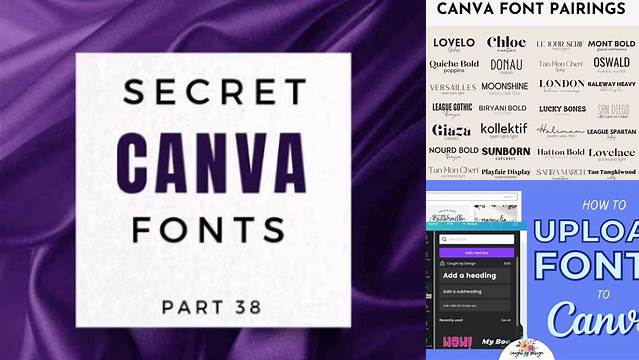
How To Put Fonts In Canva: A Complete Guide
Unlocking Typography Magic: How to Put Fonts in Canva
Hey guys! Ever wondered how to level up your Canva designs with some killer fonts? You're in the right place! Adding custom fonts to Canva can seriously boost your brand's aesthetic and make your designs pop. Whether you're a seasoned designer or just starting out, this guide will walk you through everything you need to know about how to put fonts in Canva, from uploading your own fonts to using Canva's extensive library. Get ready to transform your designs and make them truly unique! Let's dive in and explore the fantastic world of typography in Canva. We'll cover everything from the basics of font selection to the nitty-gritty of uploading and managing your fonts. By the end of this guide, you'll be a Canva font pro, ready to create stunning visuals that grab attention and leave a lasting impression. So, grab your coffee (or your favorite beverage) and let's get started on this exciting journey into the heart of Canva's font features!
Understanding the Importance of Fonts in Design
Before we jump into the how-to, let's chat about why fonts are so darn important. Fonts are more than just letters; they're the voice of your brand. They communicate your personality, values, and the overall feeling you want to evoke. Choosing the right font can make or break your design. It can attract your audience or make them turn away. Think about it: a playful font suits a children's brand, while a sleek, modern font fits a tech company perfectly. The right font creates the right impression. In the world of graphic design, font selection is a crucial element. It is the most fundamental component of your design. Different fonts tell different stories. They can convey professionalism, creativity, or even a sense of fun. The font you select has the power to enhance and complement your design or to diminish it and undermine your message. Therefore, take the time to learn more about the different types of fonts, and find a font that matches your brand personality, and complements the content you're creating. You must spend time with fonts as an integral component of your design. It's like choosing the right clothes for the right occasion. When you are creating content, consider what mood you want to invoke and select the fonts to match. Some fonts are like a classic suit - timeless and reliable. Others are like a bright, bold outfit - daring and attention-grabbing. Understanding font types is key to unlocking the power of typography. There are several main font categories: Serif, Sans-serif, Script, and Display. Serif fonts have little strokes (serifs) at the ends of letters. These fonts are often seen as classic and traditional, making them ideal for conveying a sense of reliability and sophistication. Sans-serif fonts, on the other hand, lack these strokes, giving them a clean, modern look that is great for digital designs and readability. Script fonts mimic handwriting, adding a touch of elegance or a playful feel. Display fonts are more decorative, used sparingly for headlines or special effects to grab attention. Also, remember to always consider your audience. If you're designing for a younger crowd, a bold, playful font might be perfect. For a professional audience, you'll want something more understated and readable.
Accessing Canva's Font Library: A Treasure Trove of Options
Alright, let's get to the good stuff: how to access Canva's awesome font library. Canva offers a huge selection of fonts, so you are sure to find something that fits your design needs. First things first, log in to your Canva account and open a new design or an existing one. On the left-hand side of the Canva editor, you'll see a toolbar. Click on the "Text" icon. This will open up the text options. Then, click "Add a heading," "Add a subheading," or "Add a little bit of body text." Now, with the text box active, click on the font selection dropdown menu, usually located at the top of the editor. This will open the list of all the available fonts in Canva. This is the treasure trove I was talking about. Here, you can scroll through the fonts and see what they look like in real-time with your text. Canva's font library is thoughtfully organized, so you can easily find the perfect font for your design. To make your search even easier, use the search bar at the top of the font selection menu. Type in the name of a font you know you like or search by a style, such as "serif," "sans-serif," "bold," or "script." Canva will filter the fonts and show you options that match your keywords. You can also filter by font styles and weight to narrow down your search. This is super helpful when you're not sure exactly what you're looking for but have a general idea. For example, if you need a bold headline font, filter the fonts by "bold" or "display" fonts. Canva provides a preview of each font as you hover over it, so you can see how it looks with your text before you actually select it. This is a great way to quickly test different fonts and see which one works best with your design. Canva's font library is constantly being updated, so you always have new options to choose from. They add new fonts, so there is always something new to discover. Plus, you'll also see a small crown icon next to certain fonts. These are Canva Pro fonts, which are available to Canva Pro subscribers. If you're not a Pro user, you can still use these fonts, but you'll need to upgrade to a Pro account. Canva also makes it easy to manage your favorite fonts. You can mark your favorite fonts by clicking the star icon. This will save them in your "Favorites" section, so you can easily find them later. This is a huge time-saver, especially when you are working on multiple projects and want to use the same fonts consistently. So, dive in, explore, and have fun finding the fonts that bring your vision to life!
Uploading Your Own Fonts: Unleashing Your Creative Freedom
Managing and Using Your Fonts Effectively
Okay, now that you know how to put fonts in Canva, let's talk about managing and using them effectively to get the best results. Remember, choosing the right fonts is only half the battle; using them strategically is what truly elevates your designs. One of the first things you should do is establish a font hierarchy. This means assigning different fonts and font sizes to different elements of your design, such as headings, subheadings, and body text. This helps to create visual interest and guides your viewer's eye through the content. For example, use a bold, eye-catching font for your headings, a slightly less bold font for subheadings, and a clean, readable font for the body text. Use font pairing to create harmony and contrast in your designs. Font pairing is the art of combining two or more fonts in a way that complements each other. You can use contrasting fonts (e.g., a serif font with a sans-serif font) or similar fonts (e.g., different weights of the same font). Don't go overboard with too many fonts. Stick to a limited number of fonts (typically 2-3) to maintain a cohesive look. Too many fonts can make your design look cluttered and unprofessional. Consistency is key to building a strong brand identity. Try to stick to your chosen fonts across all of your designs to create a recognizable brand image. This helps your audience to quickly identify your brand and builds trust. Remember that the font size plays an important role in readability. Ensure your text is large enough to be easily read, especially on different devices. Use contrast in your text to ensure good legibility. Make sure there is a high contrast between your text and the background color. Experiment with different colors to find what works best. Be mindful of the context of your design. If you are creating a design for digital use, then make sure your fonts are optimized for screen viewing. Choose fonts that are legible at smaller sizes. Finally, always check the usage rights of your fonts. Make sure you're complying with the licensing agreements. Using fonts legally is essential to protecting yourself from any copyright issues. Make the most of your fonts in Canva to enhance your designs. Use the tips above to make your designs look professional and eye-catching.
Troubleshooting Common Font Issues in Canva
Conclusion: Unleash Your Inner Typography Artist
Alright, folks, you've made it to the end! You are now well-equipped with the knowledge of how to put fonts in Canva and use them like a pro. Remember, the key to great design is experimentation and finding what works best for your brand. So go out there, explore Canva's incredible font library, upload your custom fonts, and let your creativity run wild! With the right fonts, you can turn your designs from good to stunning. Don't be afraid to try different fonts, experiment with pairings, and find the styles that speak to you and your audience. Play around with the font weights, sizes, and colors to get different effects. If you are feeling inspired, consider other areas of design such as illustrations and other visual elements. Be sure to check out Canva's blog and tutorials for more design tips and tricks. Practice makes perfect, so the more you use these techniques, the better you'll become. Keep creating, keep learning, and most importantly, have fun with it! The world of typography is vast and exciting. The possibilities are endless! So go out there and create some awesome designs. Happy designing!